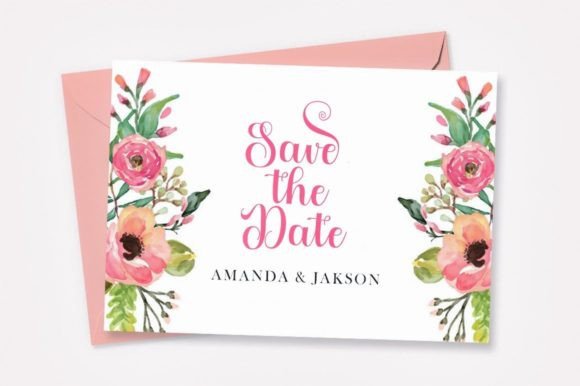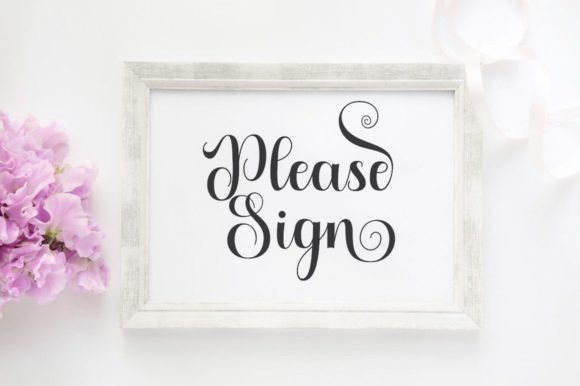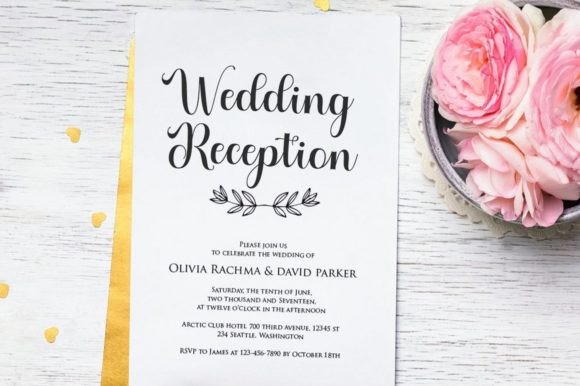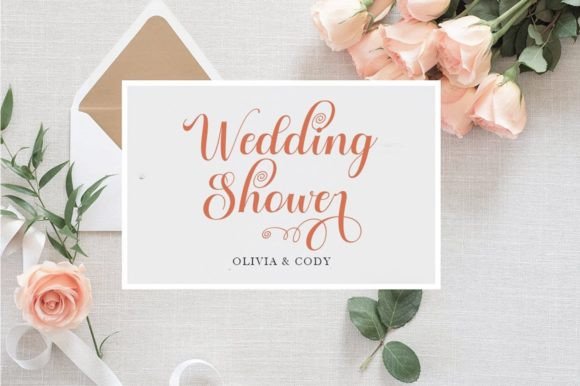
Onetha Font
About Onetha Font
Onetha sounds like an elegant and versatile calligraphy font with a touch of casual charm, enhanced by swashes. Its adaptability makes it suitable for a variety of purposes, including logos, product packaging, wedding invitations, branding, headlines, signage, labels, signatures, book covers, posters, quotes, and more.
The incorporation of swashes often adds a decorative and sophisticated element to a calligraphy font, making it particularly appealing for applications where a touch of elegance is desired. Onetha’s casual and pretty characteristics suggest a font that can bring a sense of warmth and approachability to your designs.
Consider incorporating Onetha into your design projects to explore its elegant calligraphy and swashes fully. Whether you’re working on a sophisticated logo, romantic wedding invitations, or eye-catching posters, Onetha seems poised to add a touch of charm and sophistication to your typography.
Fonts like Onetha can significantly contribute to creating visually appealing and memorable designs. Enjoy utilizing Onetha in your creative endeavors, and may it bring an elegant and charming aesthetic to your most imaginative ideas!